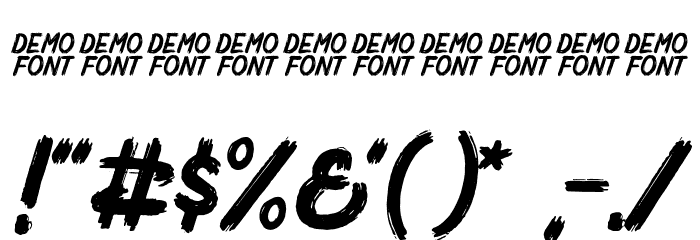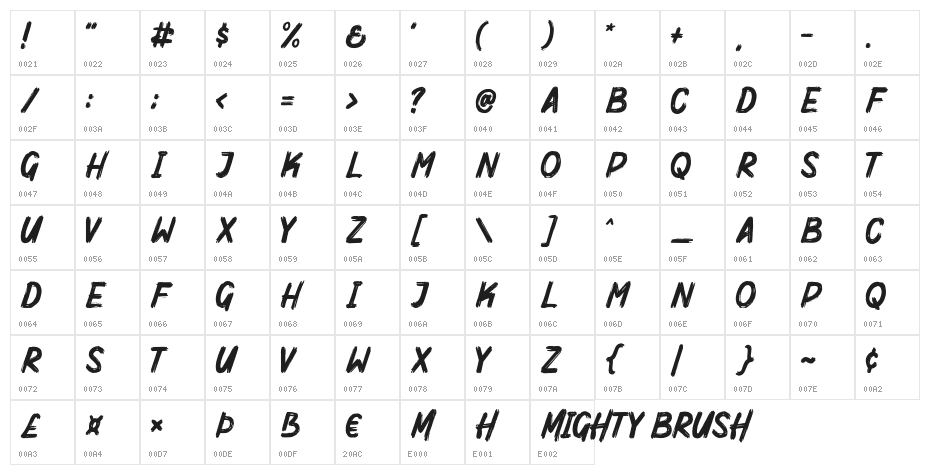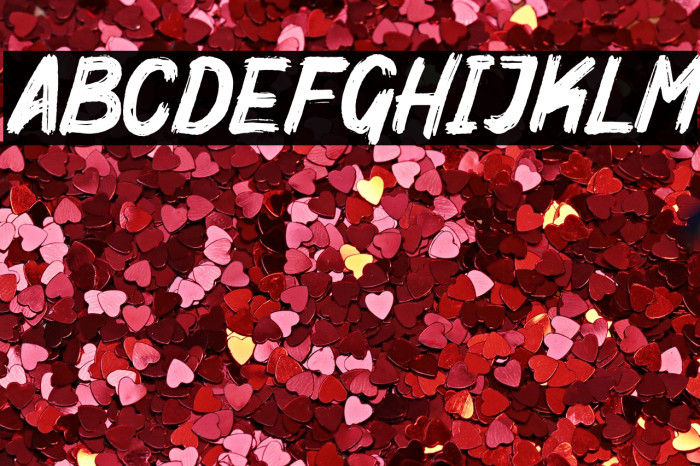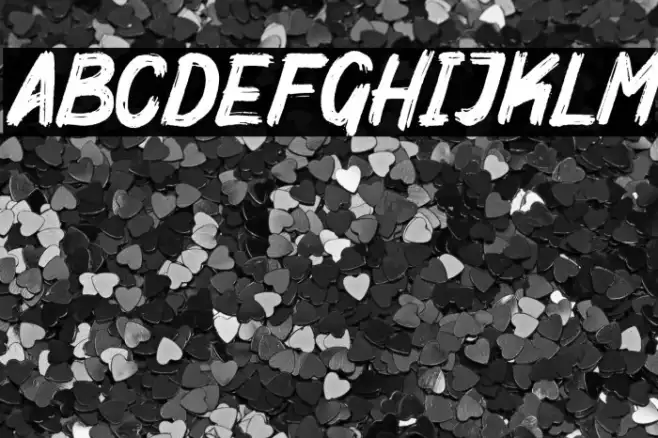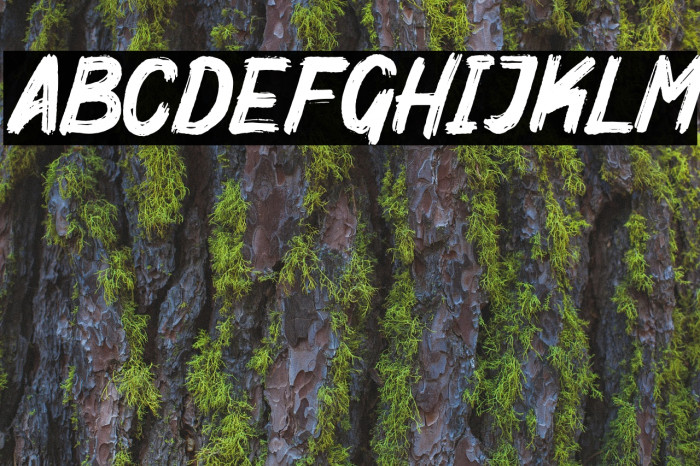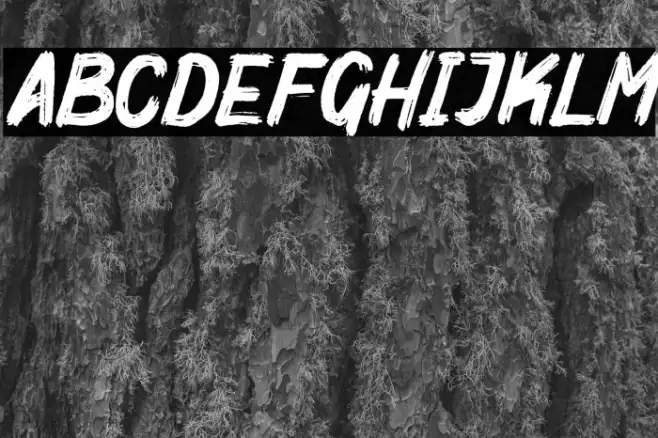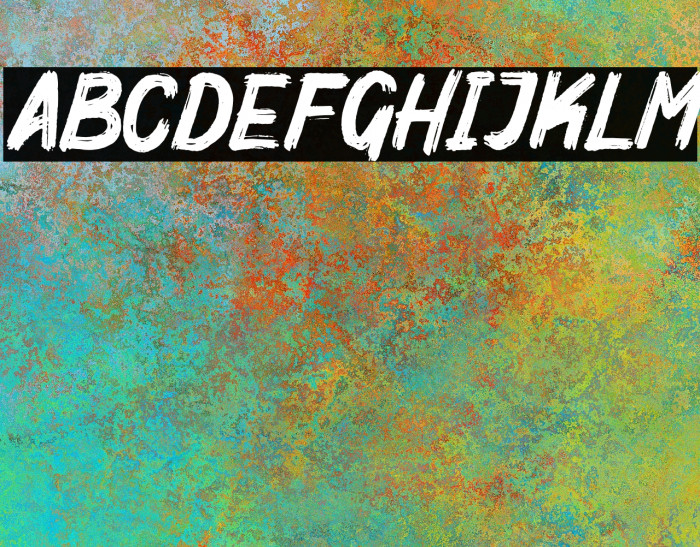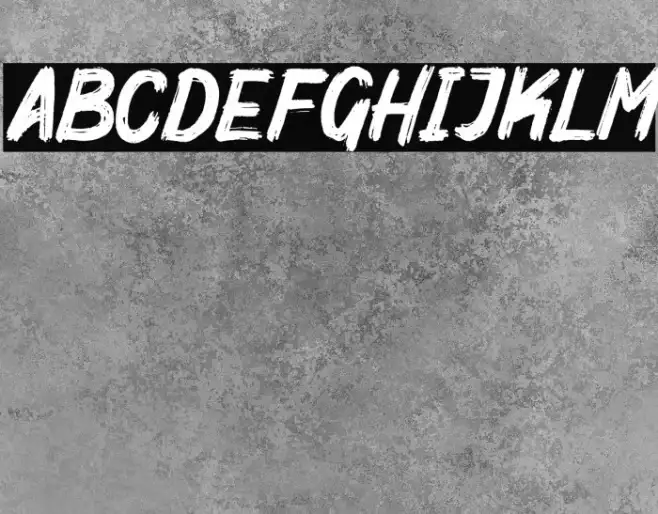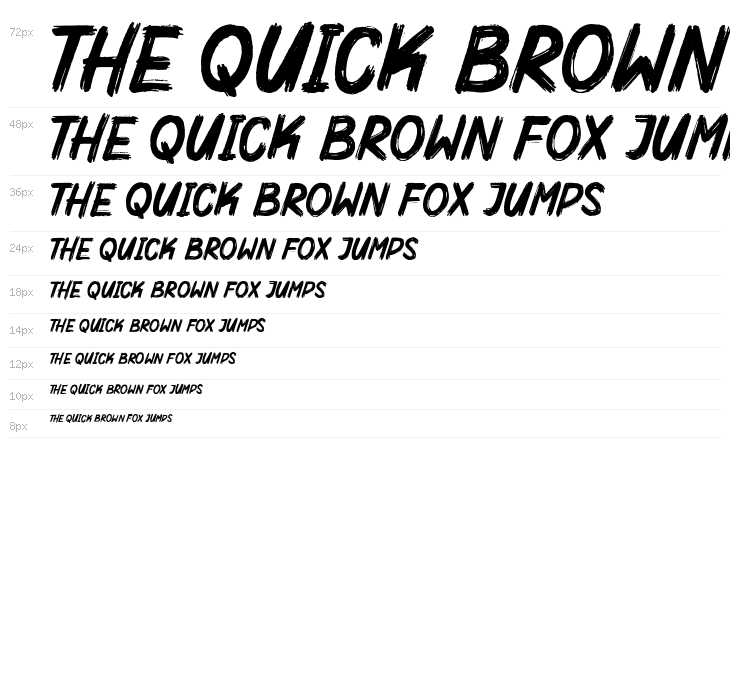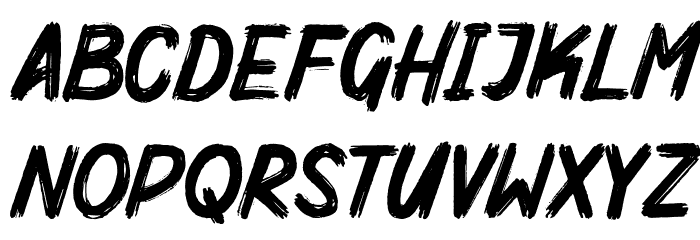
MightyBrush Font
MightyBrush Description
This font features a bold, brush-like style with dynamic and energetic strokes. The characters are crafted with a sense of movement, giving them a hand-painted appearance. The uppercase and lowercase letters maintain a consistent style, with slightly irregular edges that add to the organic feel. The numbers and special characters follow the same aesthetic, ensuring a cohesive look across all elements. This font is ideal for projects that require a bold and artistic touch, capturing attention with its unique and expressive design.
| Proposed Projects | Ideal for posters, branding, and creative projects that require a bold, artistic flair. |